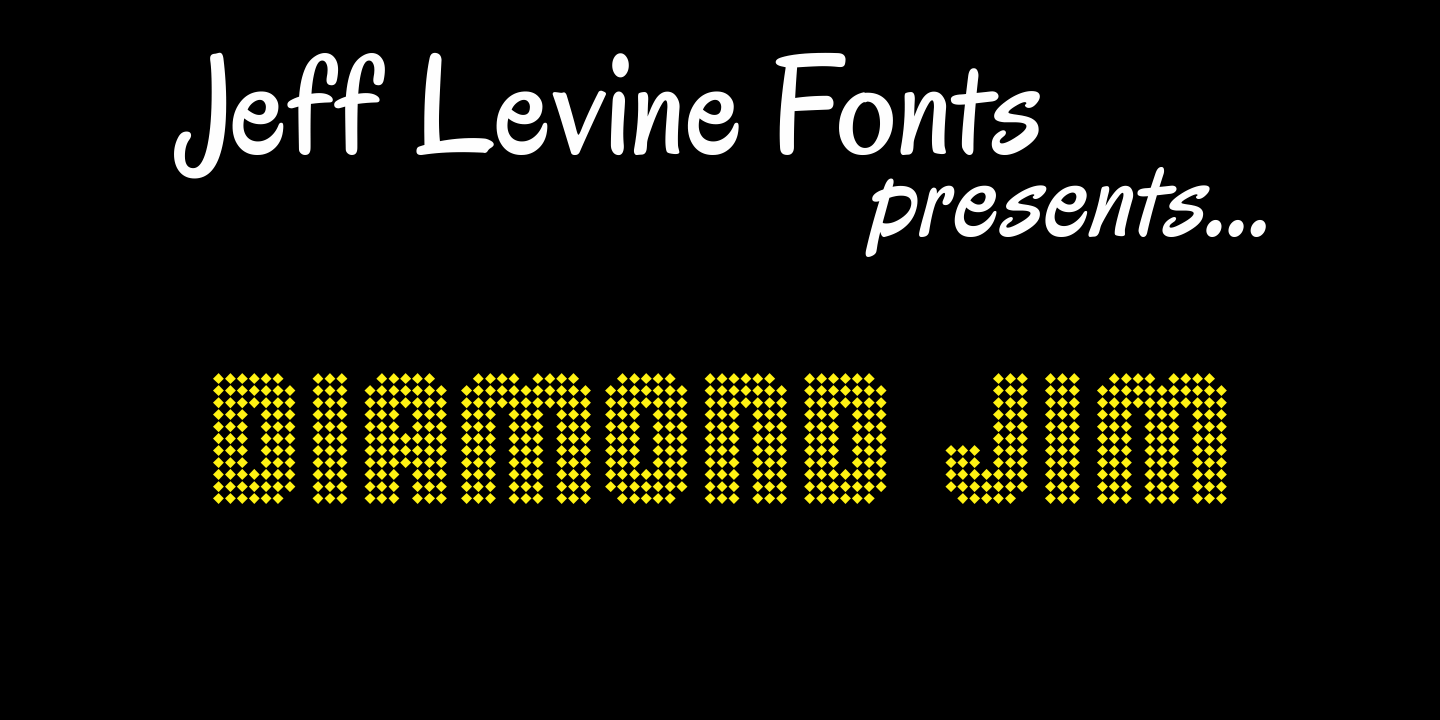
Diamond Jim
Diamond Jim JNL was inspired [in part] by an image of a 1970s Letraset® dry transfer typeface made entirely of small stars. By creating his own layout using tiny diamond shapes, Jeff Levine has produced a font that takes on multiple appearances. At 24 point it resembles dot matrix printing… at 48 point the diamonds are clearly visible… and overall, the design has a distinctive 70s retro feel. Limited character set.